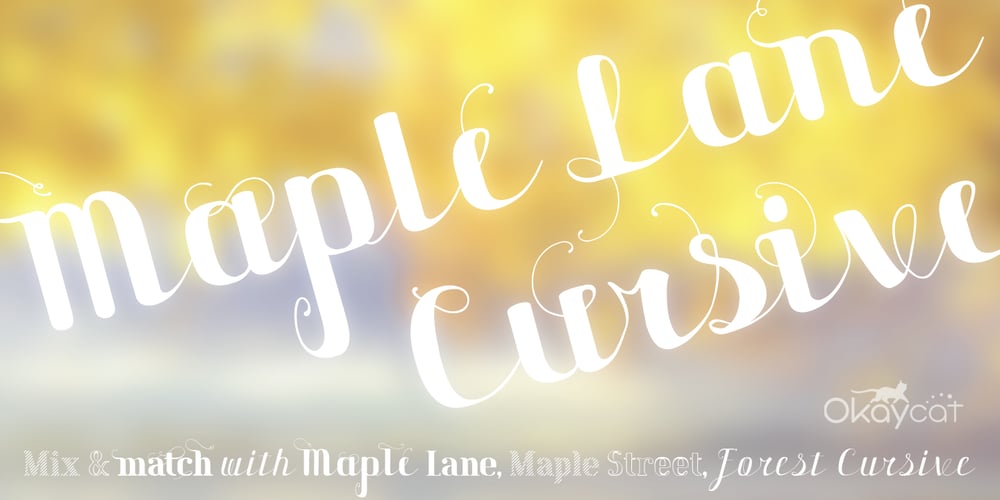
Maple Lane Cursive Font Family was designed by Natsuko Hayashida and published by Okaycat. Maple Lane Cursive contains 3 styles and family package options. Okaycat presents “Maple Lane Cursive”. You can mix and match with Forest Cursive and Maple Lane from Okaycat. Maple Lane Cursive is a wonderful connected letter cursive script arriving with fancy & upright styles. Maple Lane Cursive features beautiful style & luxurious curves. Maple Lane Cursive is extended, containing West European diacritics & ligatures, making it suitable for multilingual environments & publications.